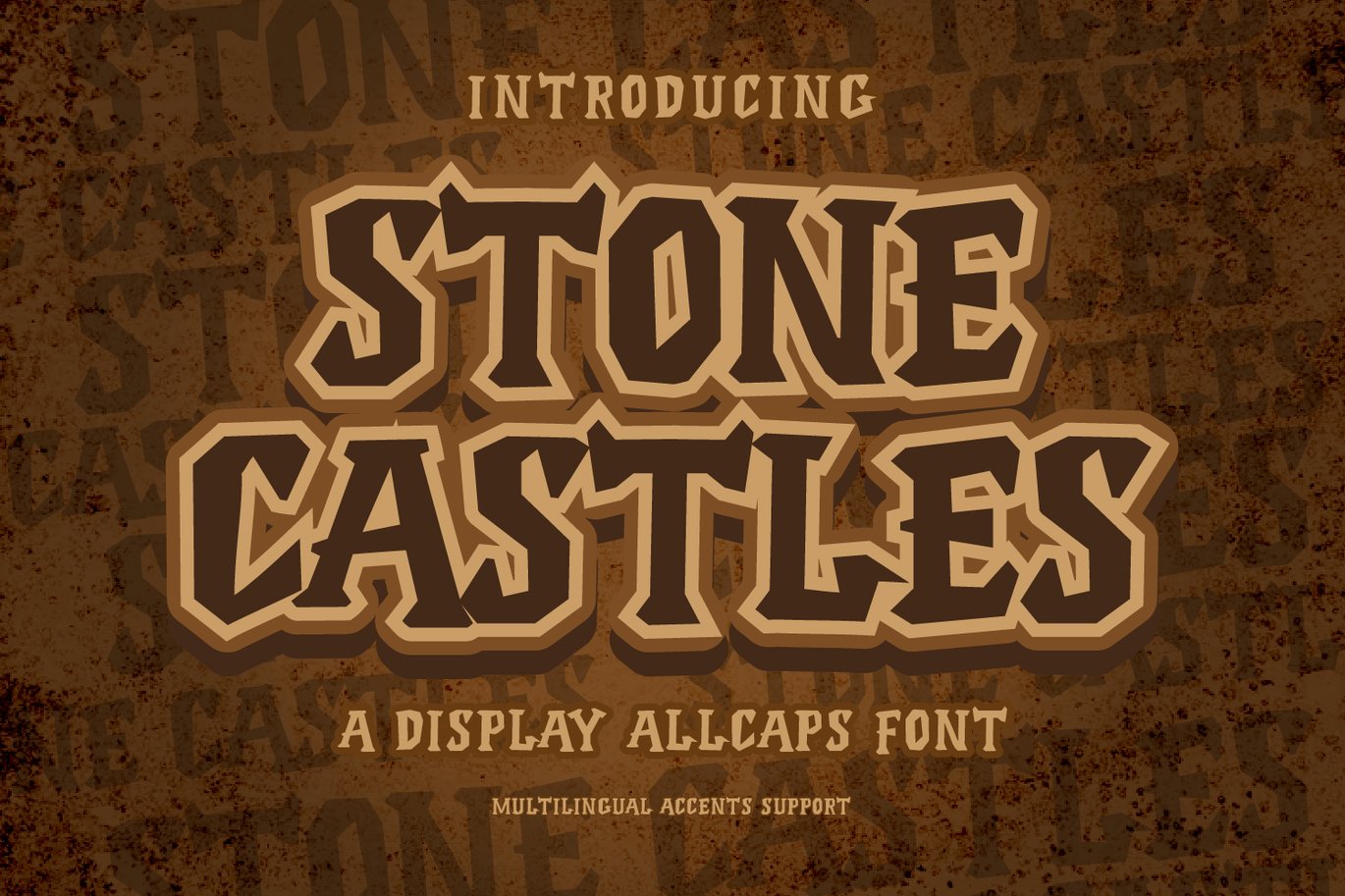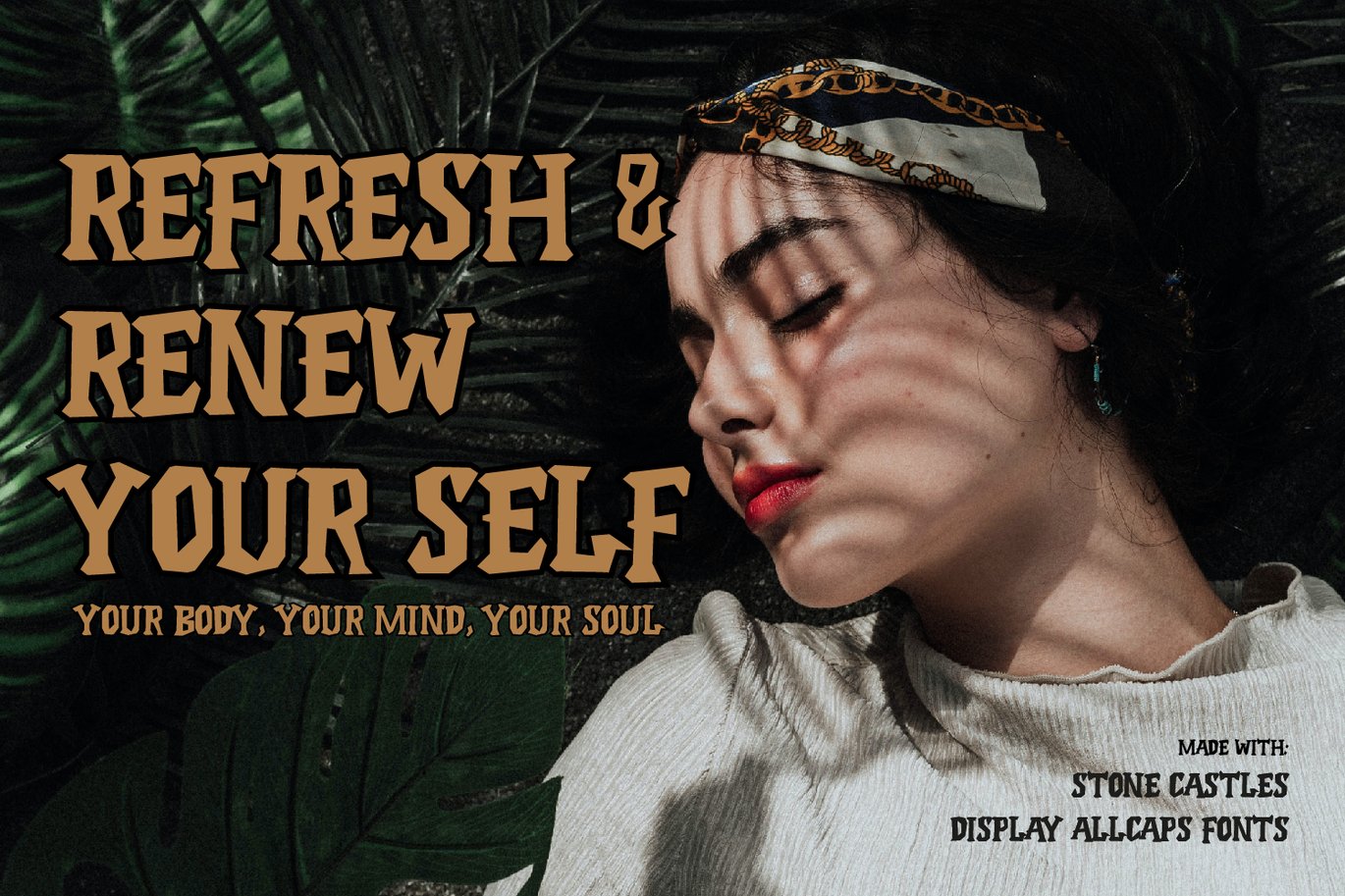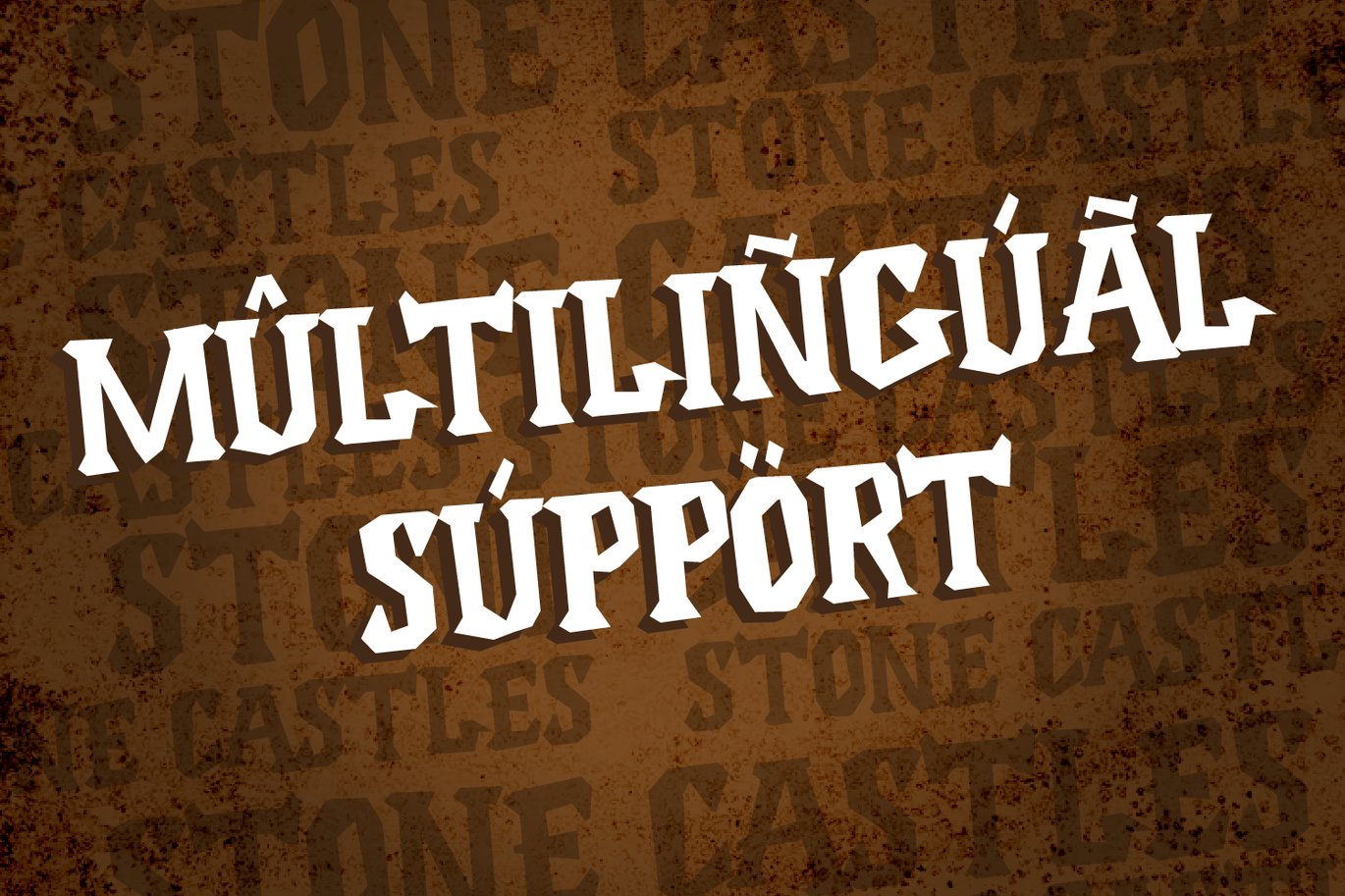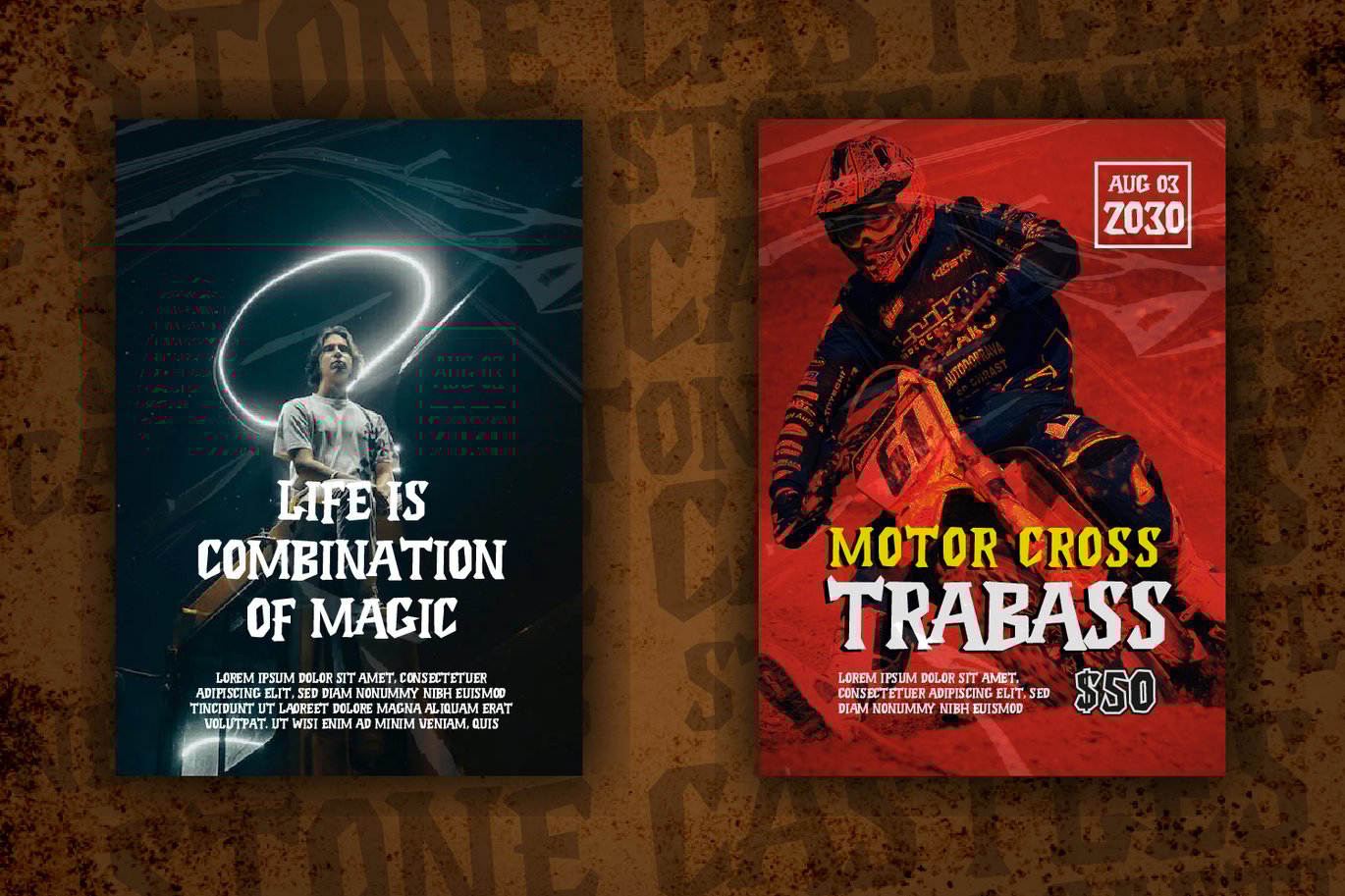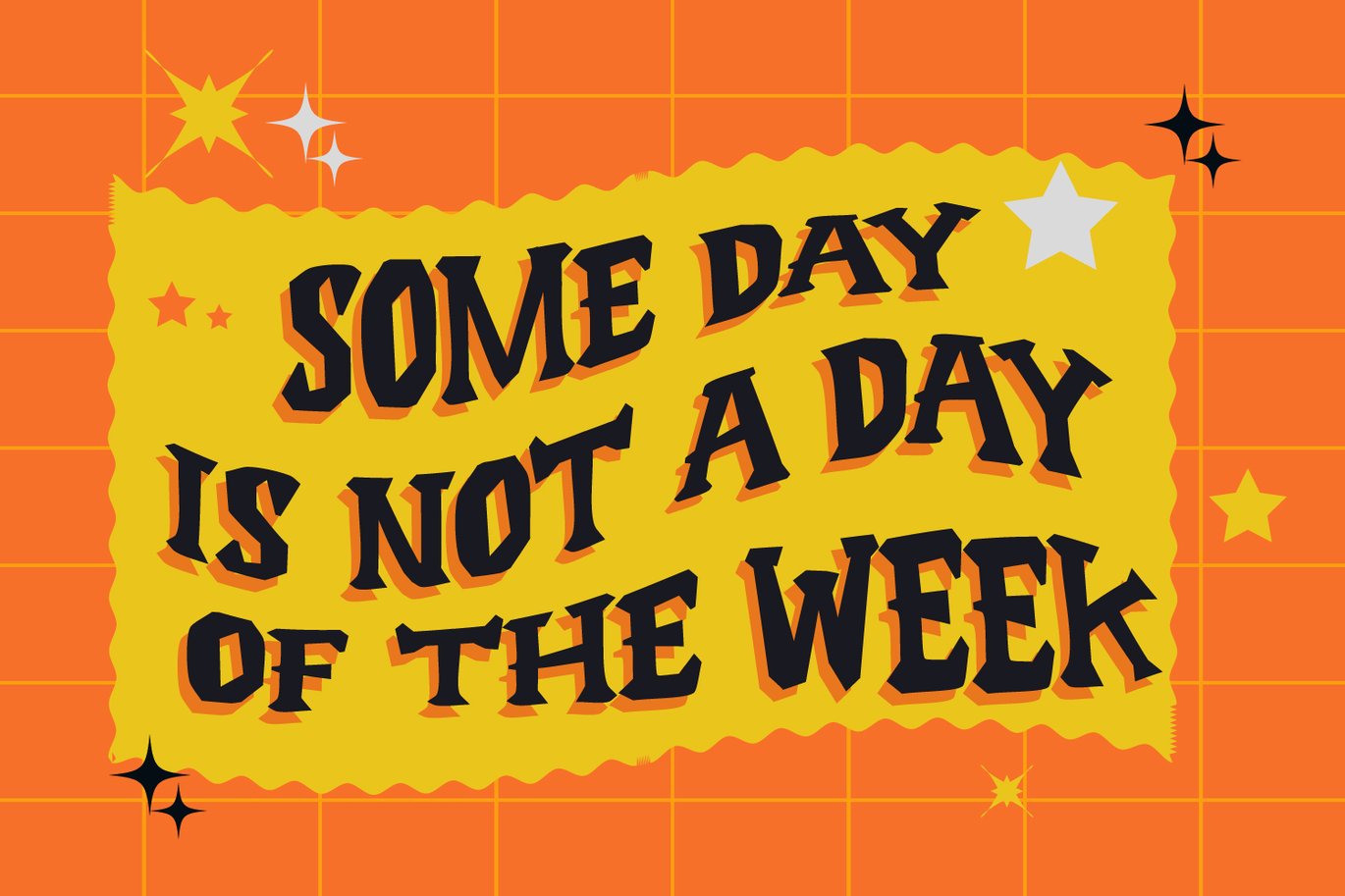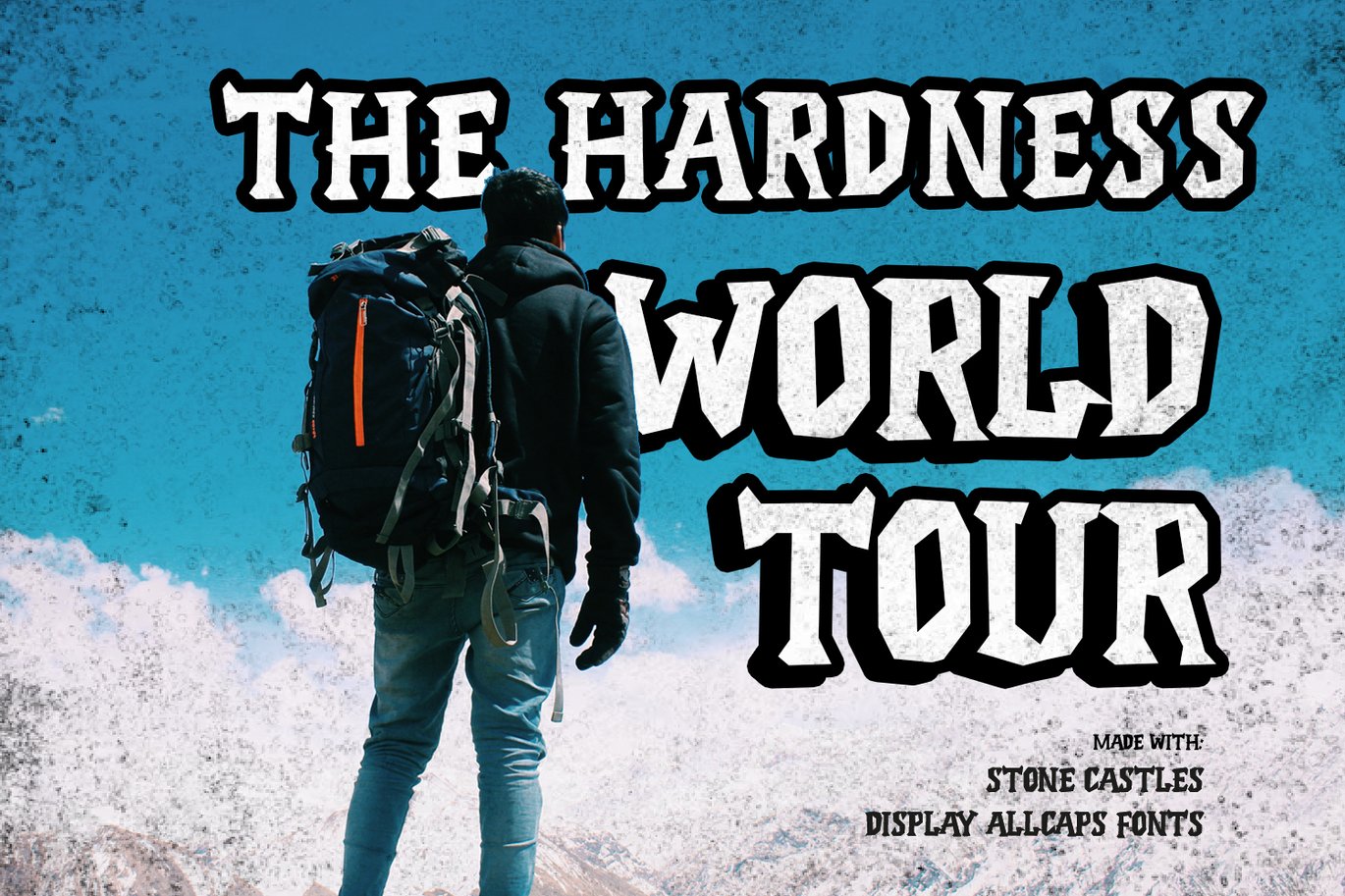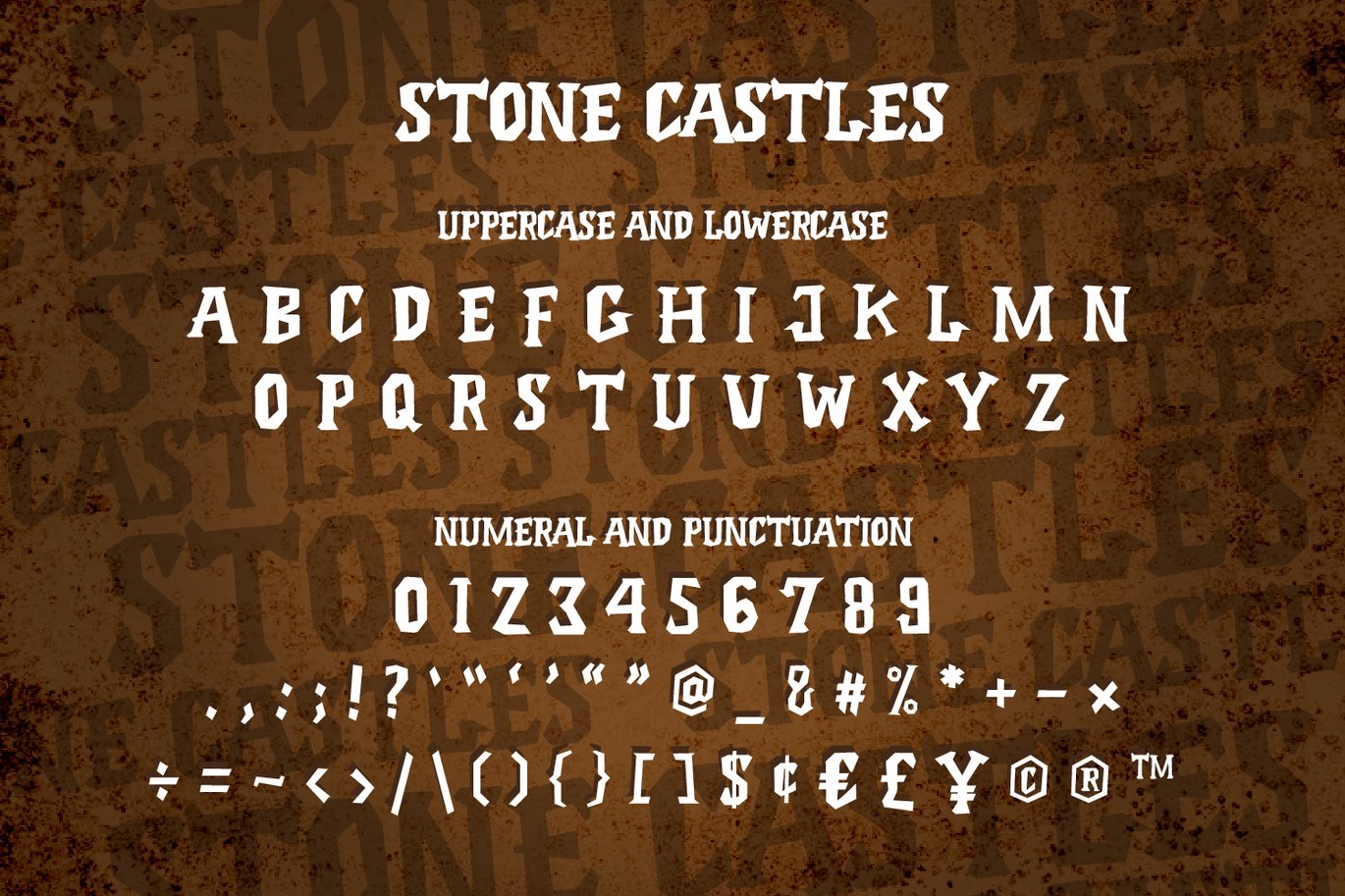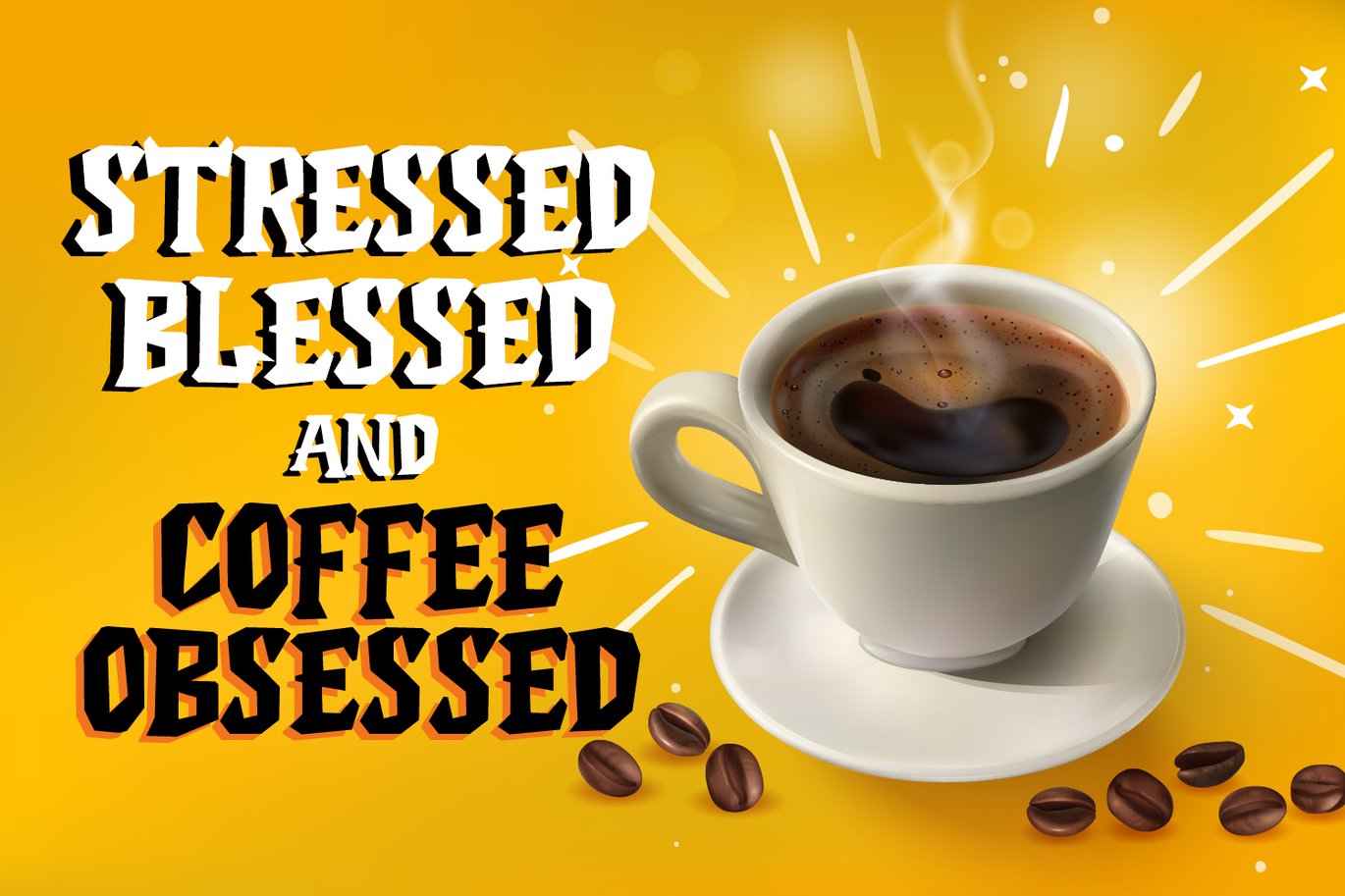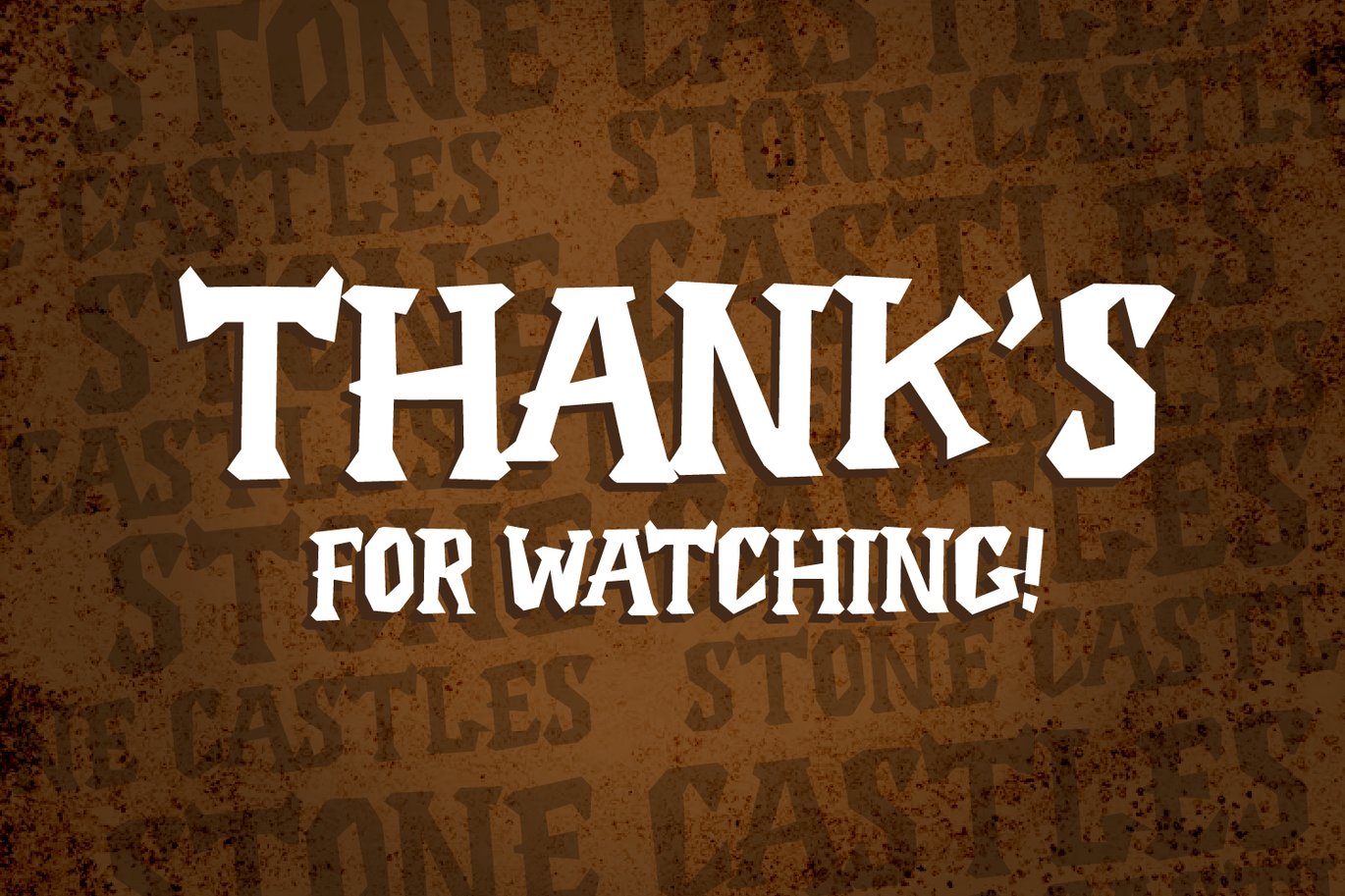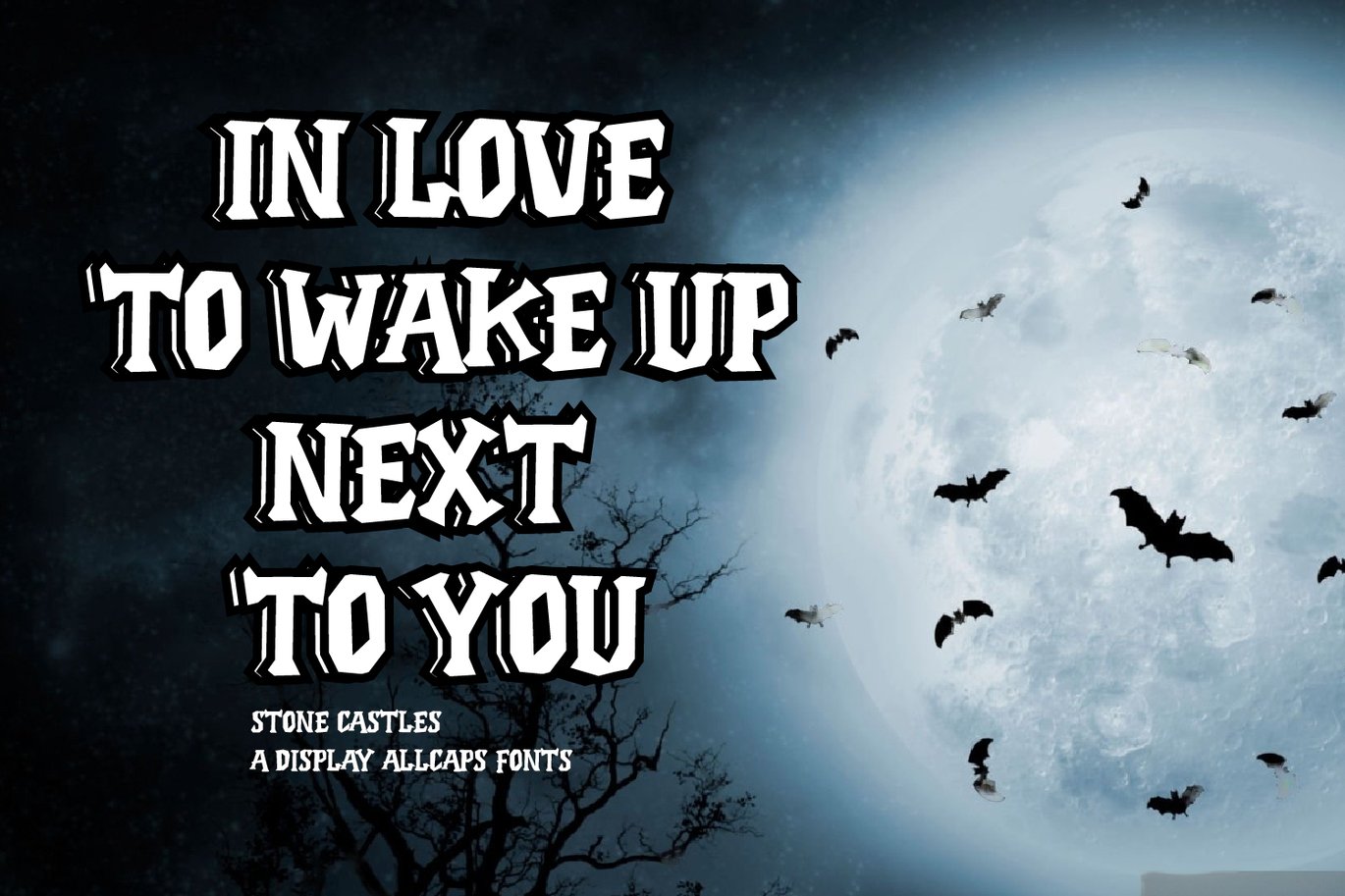
Stone Castles – Modern Display Allcaps fonts
Stone Castles is a Modern Display allcaps font, will be suitable for any projects such as branding, promotional ads, quotes design, merchandise, social media and much more. make your work or your business to high level!!! special events, and all your other lovely projects that need beautiful handwriting taste.
- Numerals
- Punctuations (OpenType Standard)
- Accents (Multilingual Characters)